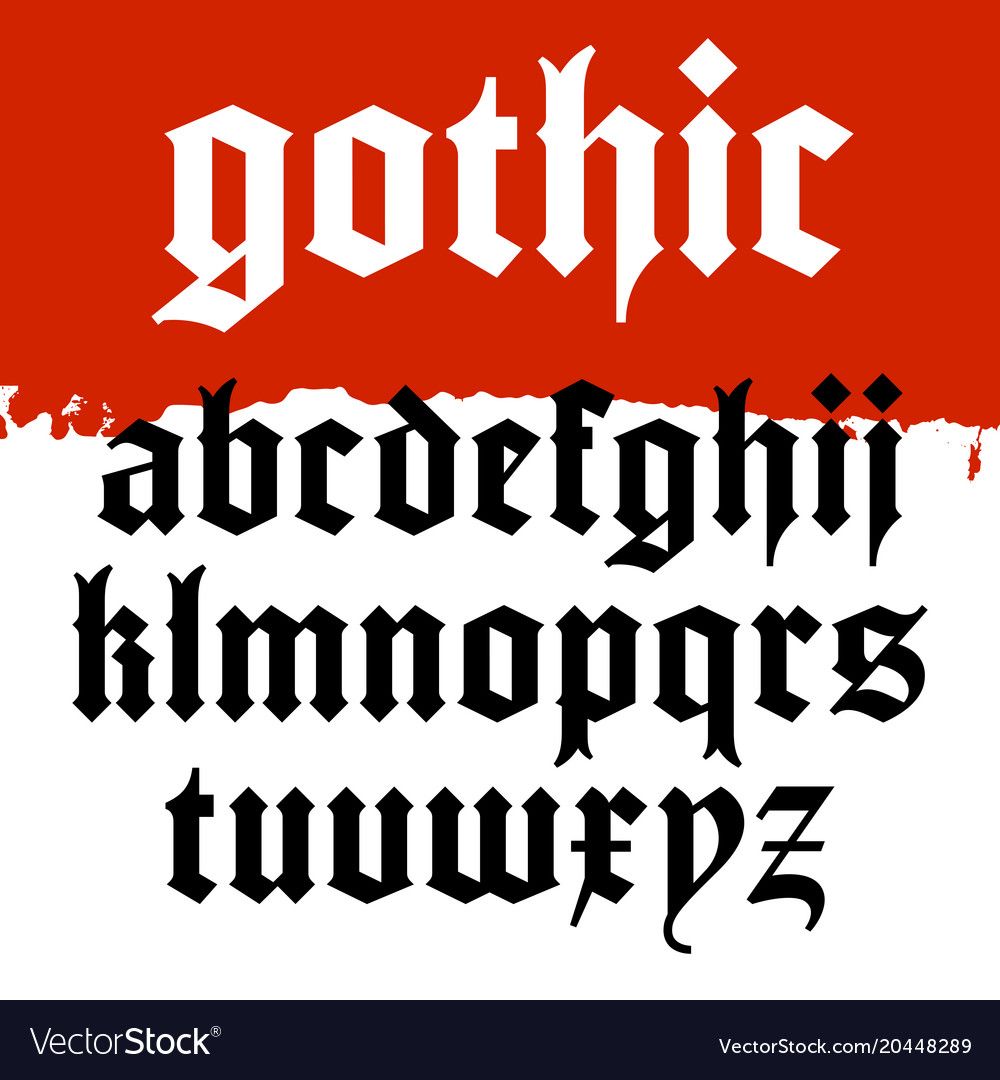
Another sub heading in century gothic.
How to get the gothic font. It was originally designed by morris fuller benton for the american type founders company in 1903. Fire, ice decorative typewriter stencil, army retro initials grid various. That's what you get with envato elements.